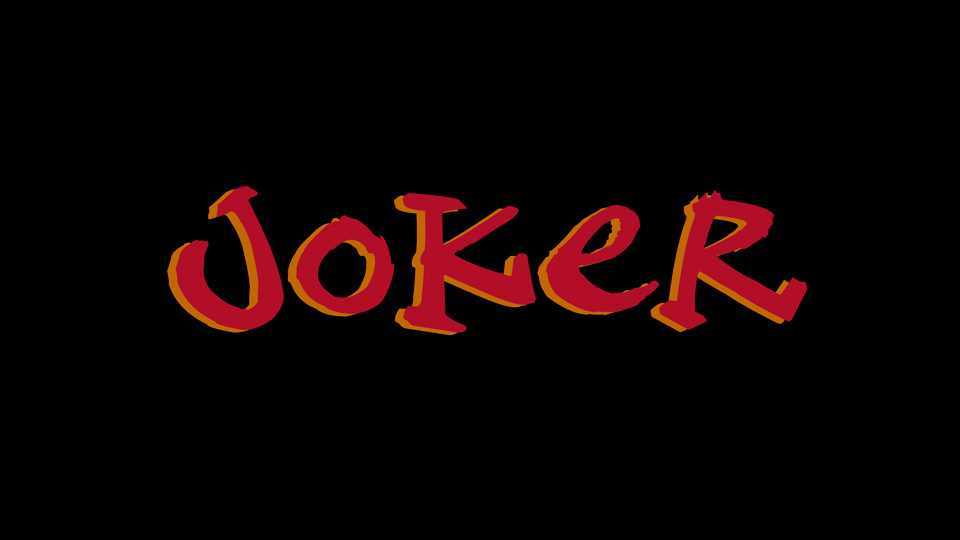
Download Joker font, a cool funny handwritten typeface. Jocker font is perfect for posters, banners, crafts, movies, covers and other creative projects.